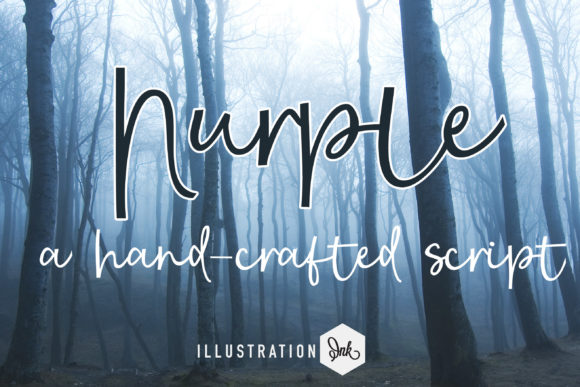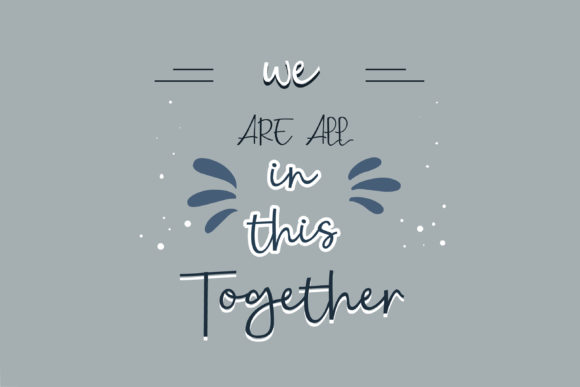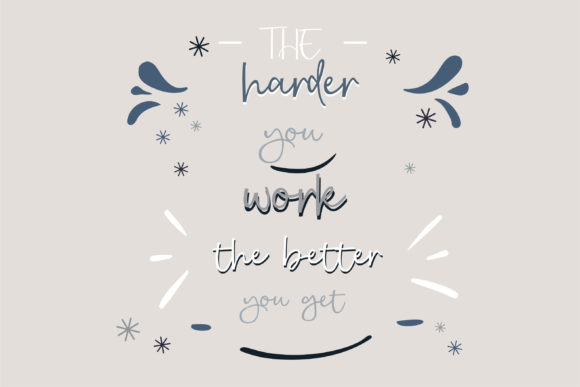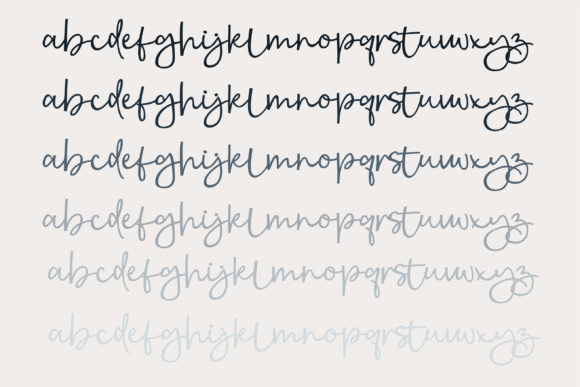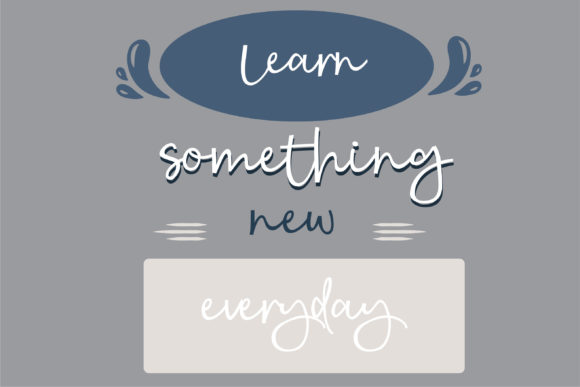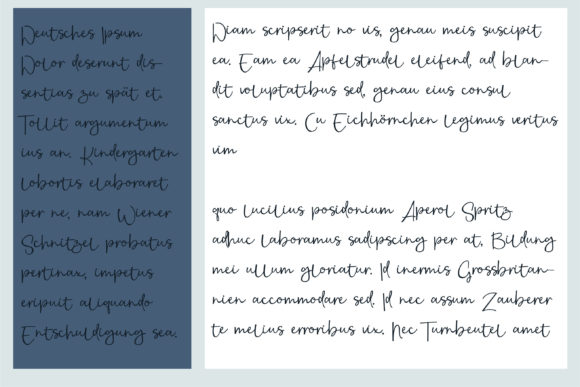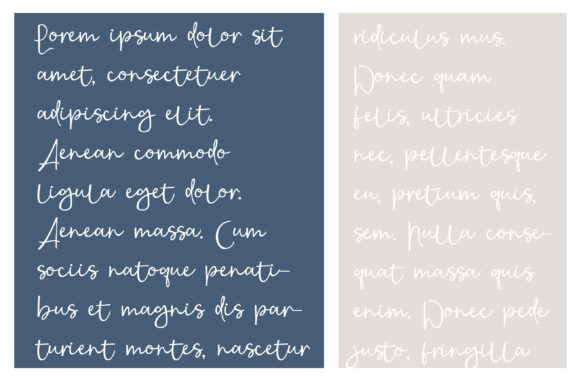
Nurple Font
About Nurple Font
Nurple is a charming and laid-back script font meticulously crafted to bring a relaxed and friendly vibe to your creative projects. Tailored specifically for packaging products, invitation cards, flyers, mockups, event posters, and a broad range of design applications, Nurple exudes high-quality aesthetics and versatility.
One of the standout features of Nurple is its beautiful and balanced character. The font strikes a harmonious blend between elegance and approachability, making it well-suited for a large design pool. Whether you’re working on a playful invitation card or a professional packaging design, Nurple adapts seamlessly to various contexts, ensuring that your message is conveyed with style.
The relaxed nature of Nurple makes it an excellent choice for projects where you want to infuse a sense of ease and friendliness. Its script style adds a touch of warmth and personality, making it particularly appealing for creating connections with your audience. Whether you’re aiming for a casual and inviting atmosphere or a more formal tone, Nurple’s versatility allows it to cater to diverse design needs.
Given its high-quality vibes, Nurple is designed to enhance the visual appeal of your products or events. Its script characteristics lend a unique and handmade feel, adding a layer of authenticity to your designs. This can be particularly impactful for packaging, where creating a connection with the consumer is crucial.
Furthermore, the adaptability of Nurple to different design elements and contexts makes it a reliable choice for various creative endeavors. The font’s compatibility with mockups, event posters, and other graphic elements ensures that it seamlessly integrates into your overall design vision.
In conclusion, Nurple is more than just a script font; it’s a versatile and friendly design tool. Its relaxed character, balanced aesthetics, and high-quality vibes make it a valuable asset for anyone looking to elevate their packaging, invitations, flyers, or any project that requires a touch of charm and style. Explore the creative possibilities that Nurple brings to the table and infuse your designs with a distinctive and inviting personality.